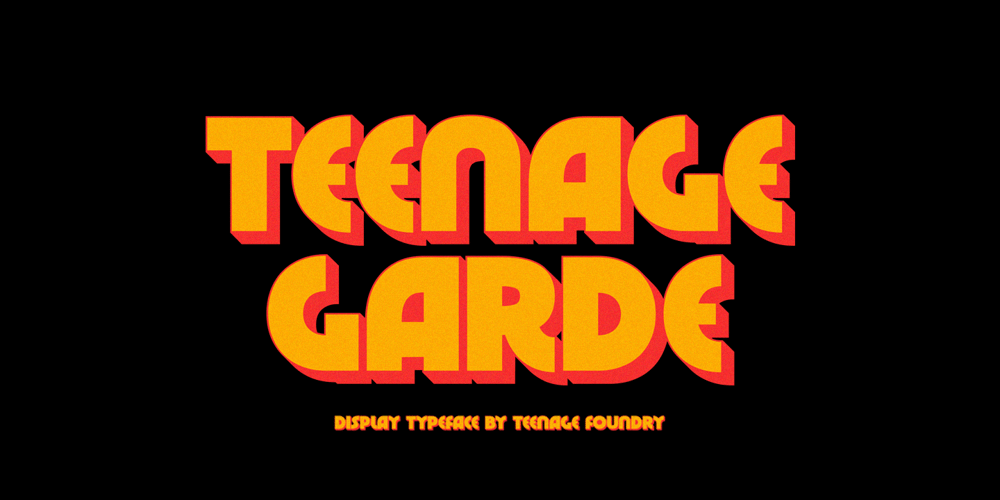
Teenage Garde Font Family was designed by Miftahul Habib and published by Teenage Foundry. Teenage Garde contains 2 styles and family package options. Introducing by Teenage Foundry!Teenage Garde is a bold and neat display typeface font that exudes confidence and modernity. With its strong, clean lines and sharp edges, this font is designed to make a bold statement.Teenage Garde boldness gives it a commanding presence, making it ideal for designs that require attention-grabbing headlines or strong brand identities. Despite its simplicity, the font still manages to maintain a sense of elegance and sophistication. This makes Teenage Garde a versatile choice for a wide range of design projects, including advertising materials, logos, posters, and website headers.There are 2 styles, Regular & Extrude.Features: Uppercase, Lowercase, Numeral, Punctuation & Multilingual.Multilingual contained: Afrikaans, Albanian, Asu, Basque, Bemba, Bena, Breton, Catalan, Chiga, Cornish, Danish, Dutch, English, Estonian, Filipino, Finnish, French, Friulian, Galician, German, Gusii, Indonesian, Irish, Italian, Kabuverdianu, Kalenjin, Kinyarwanda, Luo, Luxembourgish, Luyia, Machame, Makhuwa-Meetto, Makonde, Malagasy, Manx, Morisyen, North Ndebele, Norwegian Bokmål, Norwegian Nynorsk, Nyankole, Oromo, Portuguese, Quechua, Romansh, Rombo, Rundi, Rwa, Samburu, Sango, Sangu, Scottish Gaelic, Sena, Shambala, Shona, Soga, Somali, Spanish, Swahili, Swedish, Swiss German, Taita, Teso, Uzbek (Latin), Volapük, Vunjo, Zulu.For any questions please contact me 🙂Thanks!